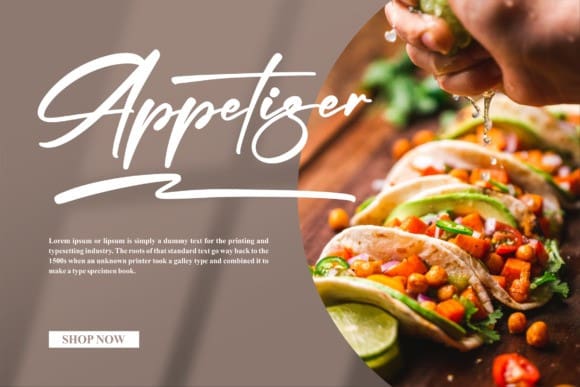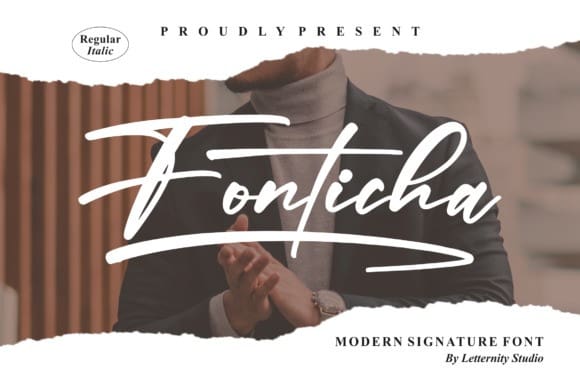
Fonticha Script Font
Fonticha Script Font, is a delicate and stylish handwritten font. It looks both beautiful and adaptable, and it will most certainly make each of your creations come alive.